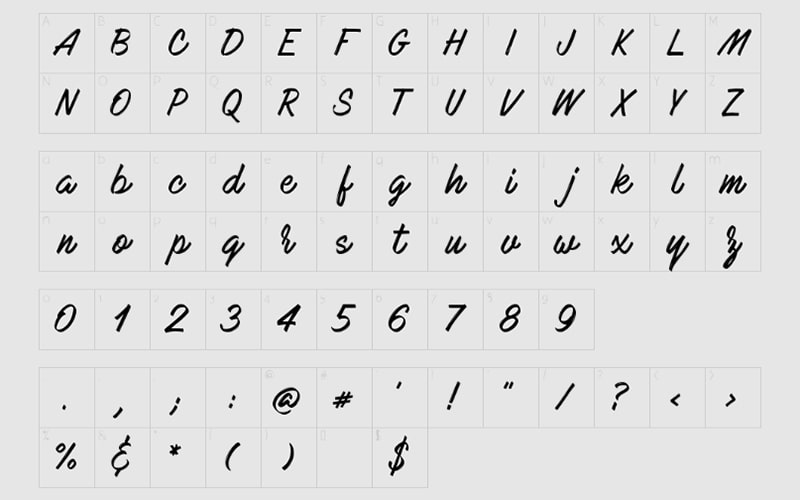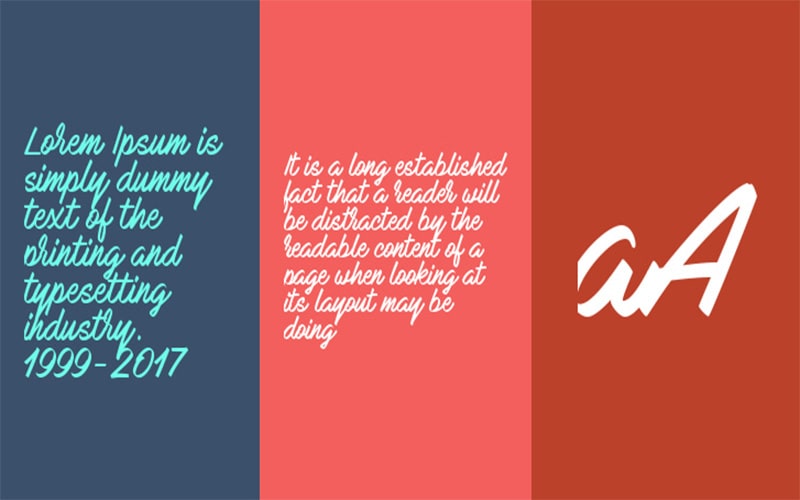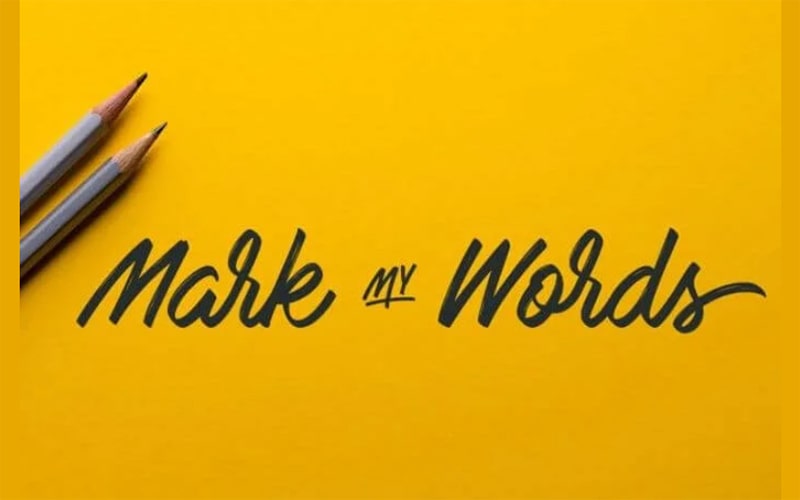
Mark My Words Font is a Brush, Script typeface. A famous font foundry StereoType is known as the primary designer who took the authority to release this typeface.
A brush outline font contains only an elegant style such as the “Mark My Words clean regular” Font style. The font subfamily of this typeface is regular.
Mark My Words Font
This brush bold font family comes in a single regular weight and contains 197 defined characters and 72 sample glyphs count in number with 1000 units per EM.
This script font style contains a strong character set including a wide range of 13 ligatures and swashes to create styles. Let’s take a look at its beautiful texture.